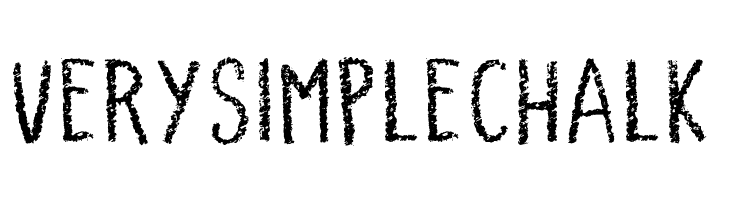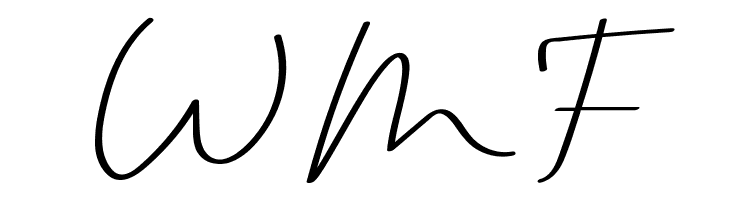
A playful, chalk-like font with a hand-drawn, textured appearance.
A decorative font with characters inside heart shapes with floral accents.
A bold, futuristic font with geometric shapes and dynamic angles.
A decorative font with elegant cursive strokes and playful accents.
A modern, ultra-thin italic font with a futuristic, electronic style.
A modern, light sans-serif font with low contrast and slightly condensed spacing.
A modern, rounded font with a playful yet clean aesthetic.
A sophisticated, cursive font with fluid strokes and elegant flourishes.
An elegant and traditional Arabic script with intricate design and dynamic contrast.
A novelty font made up of assorted decorative frame outlines.